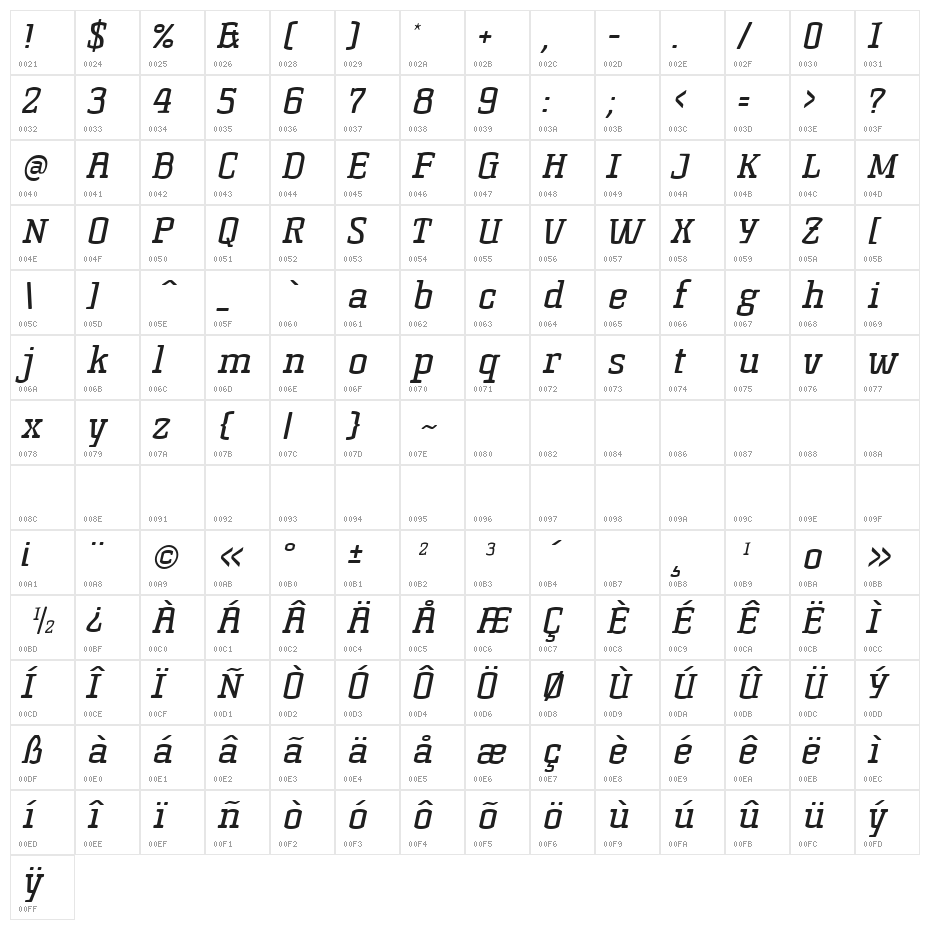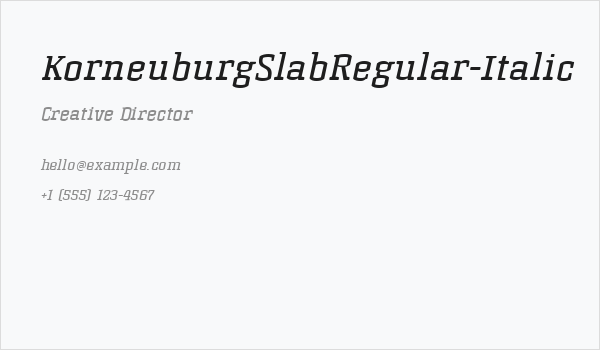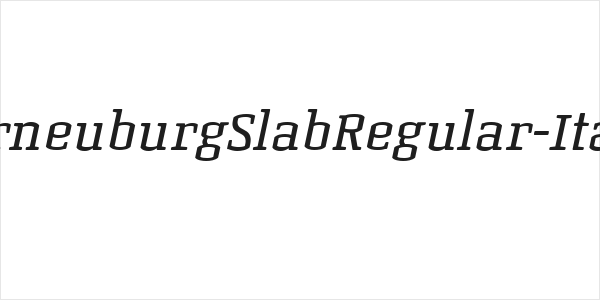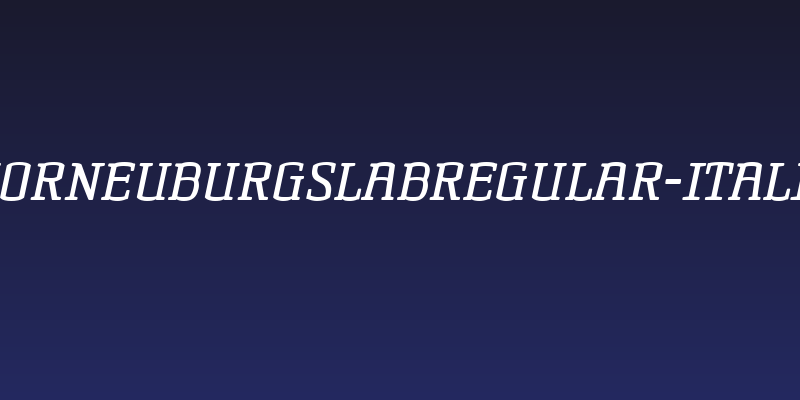
KorneuburgSlabRegular-Italic Font
KorneuburgSlabRegular-Italic Description
This font features a classic slab serif design with a distinct italic slant, giving it a dynamic and sophisticated appearance. The characters are well-defined with strong, block-like serifs that add a sense of stability and tradition. The italic style introduces a sense of movement and elegance, making it suitable for both formal and creative applications. The uppercase letters are bold and commanding, while the lowercase letters maintain readability with a slight slant. Numbers and special characters are consistent in style, ensuring uniformity across different uses.
| Use Case | Headlines, Logos, Editorial Design |
| Proposed Projects | Ideal for editorial design, branding projects, and sophisticated advertising campaigns. |